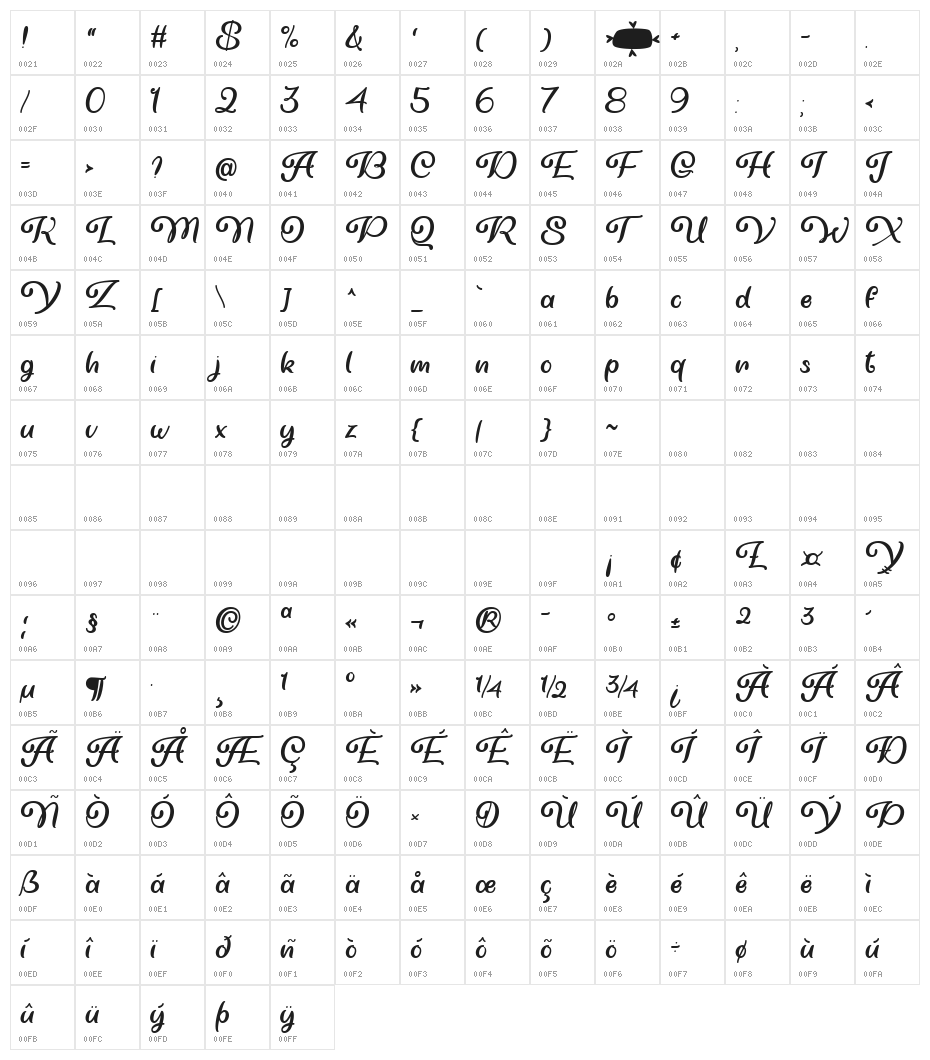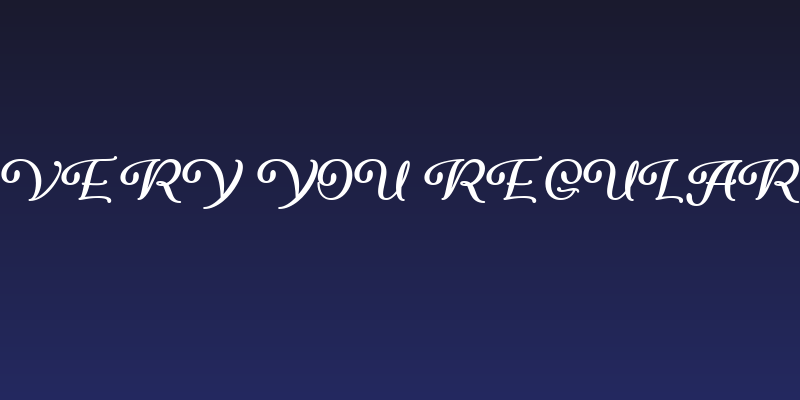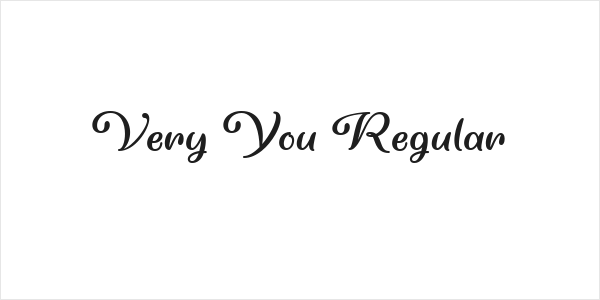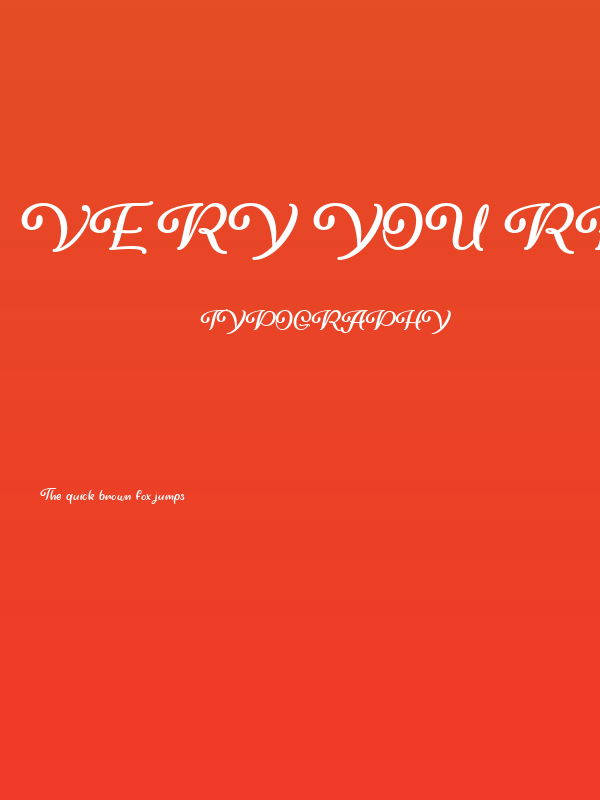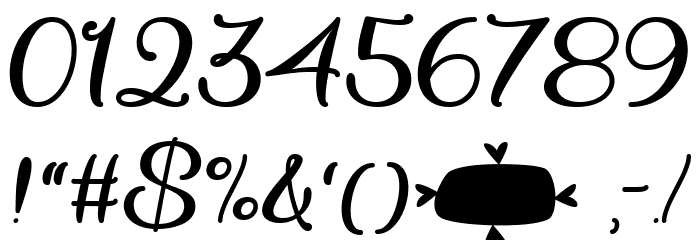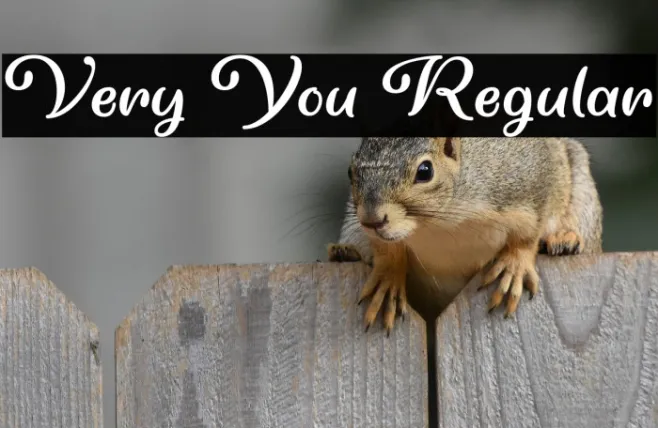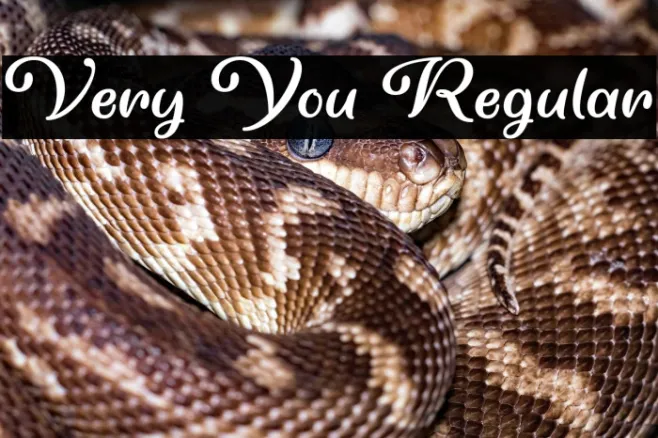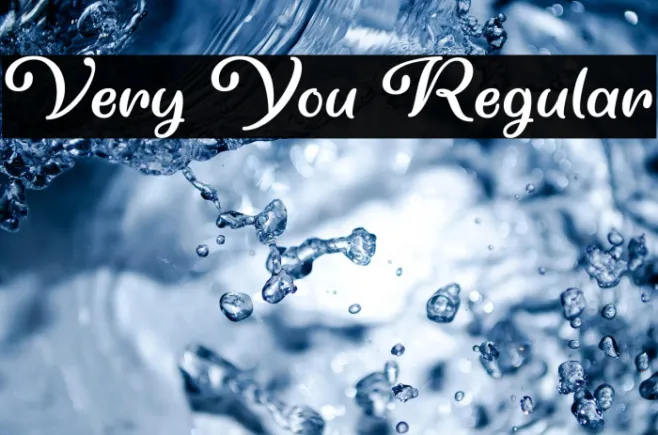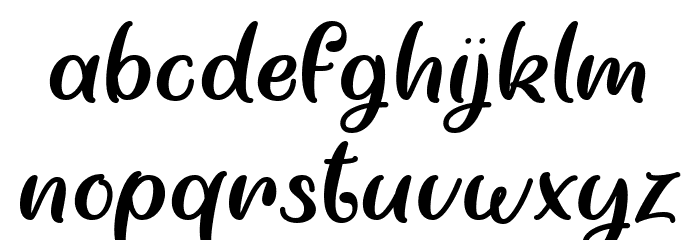
Very You Regular Font
Very You Regular Description
This font exhibits a playful and elegant script style, characterized by its flowing, cursive letterforms. The uppercase letters are ornate with flourishes that add a touch of sophistication, while the lowercase letters maintain a smooth, rounded appearance. The numbers are bold and clear, ensuring readability. Special characters are creatively designed, adding to the font's decorative appeal. The overall aesthetic is both modern and whimsical, making it suitable for a variety of creative projects.